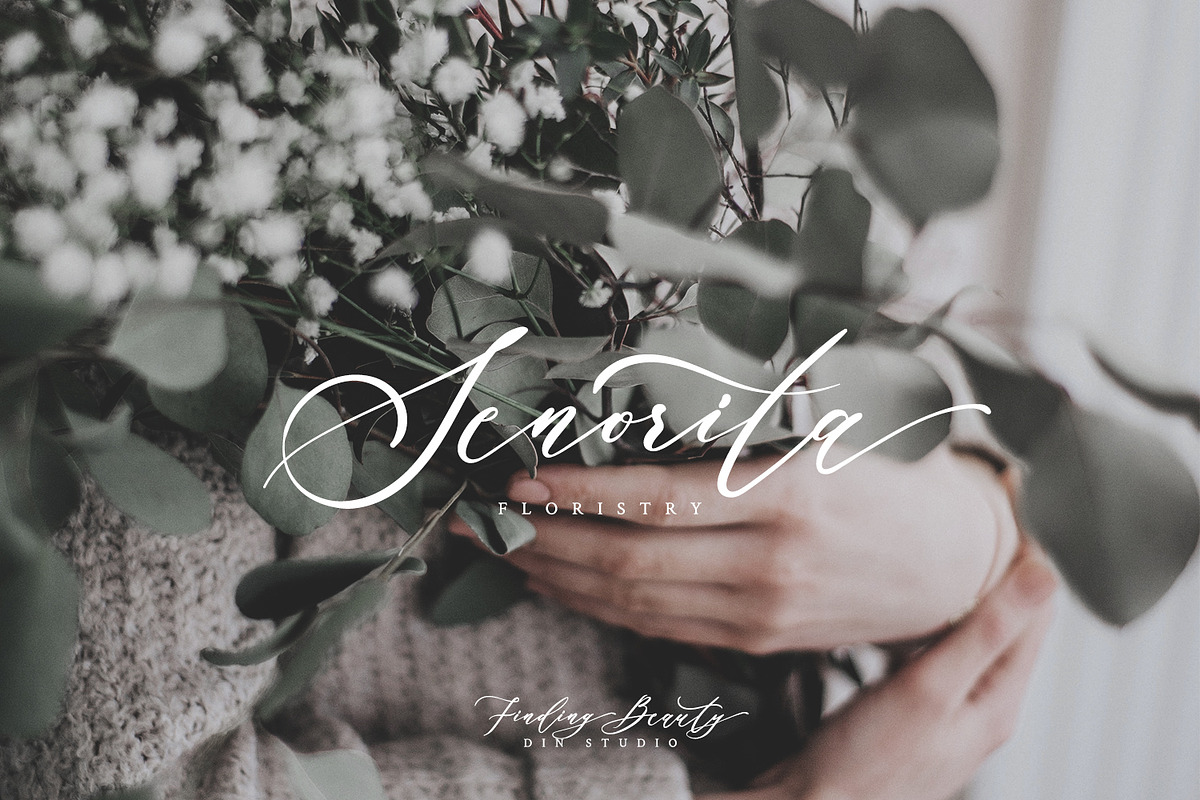
Finding Beauty
Hoping to find beauty in your project? Trying to impress your audiences, guests, or costumers? How about a mix of modernity, style, and elegance? Introducing Finding Beauty – A Script Font.
Finding Beauty is designed and carefully handcrafted elegantly and gracefully to embrace your project. This font will never go wrong for your audience, clients, guests or anyone around you!
- Stylistic Sets
Finding Beauty fits best for any design projects, such as posters, banners, logos, book covers, album covers, quotes, invitations, greeting cards, name cards, headings, printed products, merchandise, social media, etc. Find out more ways to use this font by taking a look at the font preview.